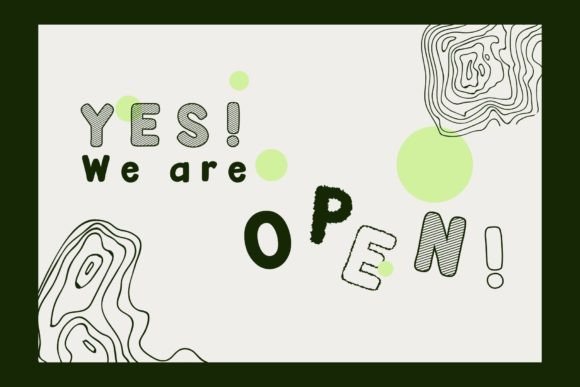
Introducing Fox Diego Font: A 5-Style Display Font for Creative Designs
In the world of typography, a font can make or break a design. A well-crafted font can elevate a project, making it more engaging, memorable, and impactful. One such font that has been making waves in the design community is Fox Diego Font, a 5-style display font that embodies a cool, cute, and playful spirit. In this article, we’ll dive into the features, benefits, and uses of Fox Diego Font, and explore how it can add a captivating and energetic touch to your designs.
What is Fox Diego Font?
Fox Diego Font is a 5-style display font designed to make a statement. Its vibrant and expressive design makes it perfect for use in a variety of creative projects, from publications and menus to logos, business cards, and even printed on t-shirts. This font is all about uniqueness, offering a fresh and exciting alternative to traditional typography.
Key Features of Fox Diego Font
- 5 Style Variations: Fox Diego Font comes in 5 different styles, allowing you to experiment with various looks and feels to find the perfect fit for your design.
- Cool, Cute, and Playful: This font exudes a fun and energetic vibe, making it ideal for designs that require a youthful and lively touch.
- Vibrant and Expressive Design: Fox Diego Font features a bold and eye-catching design that’s sure to grab attention and leave a lasting impression.
Uses of Fox Diego Font
Fox Diego Font is a versatile font that can be used in a wide range of design projects. Here are some ideas to get you started:
Perfect for:
- Publications: Use Fox Diego Font to create attention-grabbing headlines, titles, and captions for magazines, newspapers, and books.
- Menus: Add a pop of personality to your restaurant or cafe menu with this fun and playful font.
- Logos: Create a unique and memorable logo for your brand using Fox Diego Font.
- Business Cards: Stand out from the crowd with a business card that features Fox Diego Font.
- T-Shirts and Merchandise: Print Fox Diego Font on t-shirts, hoodies, and other merchandise to create eye-catching and stylish designs.
Benefits of Using Fox Diego Font
So, why choose Fox Diego Font for your design projects? Here are some benefits of using this amazing font:
Why Choose Fox Diego Font?
- Uniqueness: Fox Diego Font offers a fresh and unique look that sets it apart from other fonts.
- Attention-Grabbing: This font is designed to grab attention and make a statement.
- Versatility: Fox Diego Font can be used in a wide range of design projects, from publications to merchandise.
- Ease of Use: This font is easy to read and works well in both digital and print formats.
Tips for Using Fox Diego Font
To get the most out of Fox Diego Font, here are some tips to keep in mind:
Design Tips:
- Experiment with Different Styles: Try out different style variations to find the one that works best for your design.
- Pair with Other Fonts: Combine Fox Diego Font with other fonts to create a unique and visually appealing design.
- Use for Headlines and Titles: Take advantage of Fox Diego Font’s attention-grabbing design by using it for headlines and titles.
In conclusion, Fox Diego Font is a 5-style display font that offers a cool, cute, and playful alternative to traditional typography. Its vibrant and expressive design makes it perfect for use in a wide range of creative projects, from publications and menus to logos, business cards, and merchandise. With its uniqueness, attention-grabbing design, and versatility, Fox Diego Font is a great addition to any designer’s toolkit.